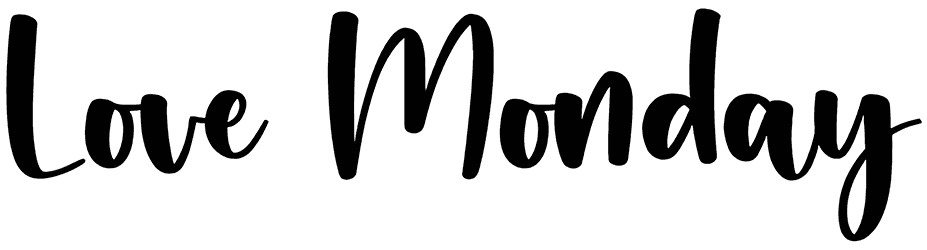
Love Monday Font
What your layout needs to communicate with your followers is realistic manuscript text, and this love font can make it happen. The smooth and casual face of letters is going to make your design striking and stylish. Love Monday font is a great item for countless projects, like a birthday invitation card, a postcard for your friends, and so on.